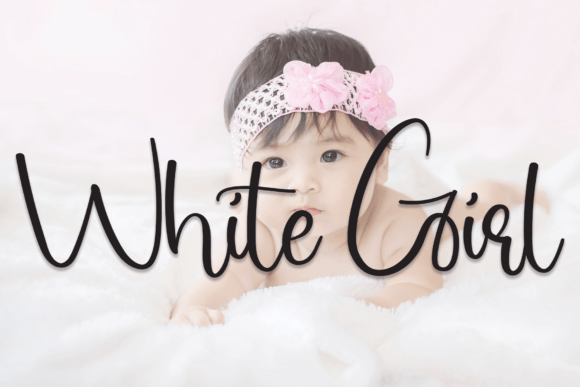
In a realm where words come alive, meet White Girl Font, a script font family that dances off the page like a delicate ballerina. With every swirl and curve, this enchanting font captivates the senses, leaving an indelible mark on hearts and minds.
Stride confidently into the world of handcrafted elegance as you explore the limitless possibilities of White Girl Font. With its spirited and playful nature, this font family is perfect for capturing the magic of Christmas, adding a touch of whimsy to your festive designs.
Whether you're crafting heartfelt greeting cards, creating digital designs that sparkle with joy, or delivering unforgettable presentations, White Girl Font will transform your creative visions into masterpieces. Its versatility knows no bounds, making it the perfect companion for a myriad of projects.
Imagine your words taking flight, dancing across the screen or paper, carrying a message of love, laughter, or inspiration. With White Girl Font, your words become art, leaving a lasting impression that touches the soul.
So, dear seekers of beauty, storytellers, and creative spirits, embark on a journey of artistic expression with White Girl Font. Let your imagination soar and witness the magic unfold as you weave your creative tapestry.
Crafted with love by William Jhody, this font family is a testament to the transformative power of typography. Allow White Girl Font to be your muse, guiding you to create designs that resonate with your audience, leaving them breathless and eager for more.